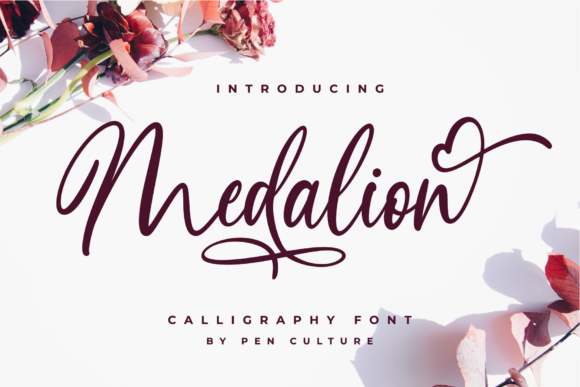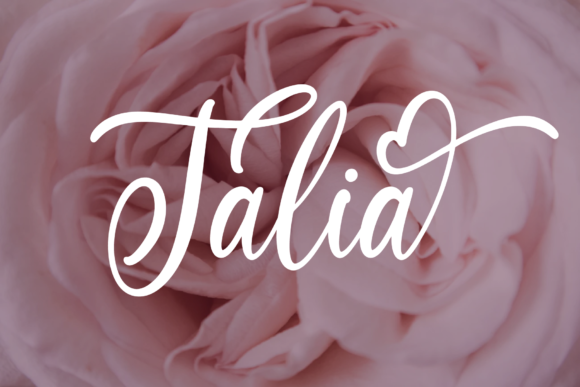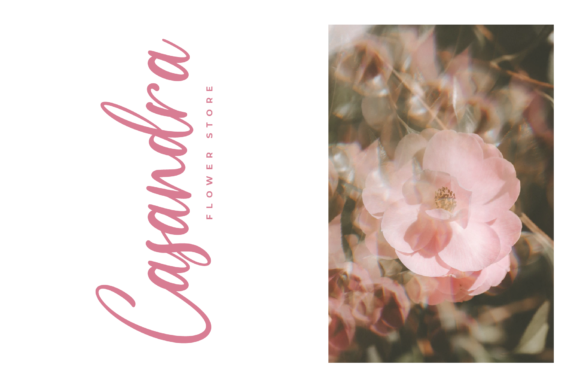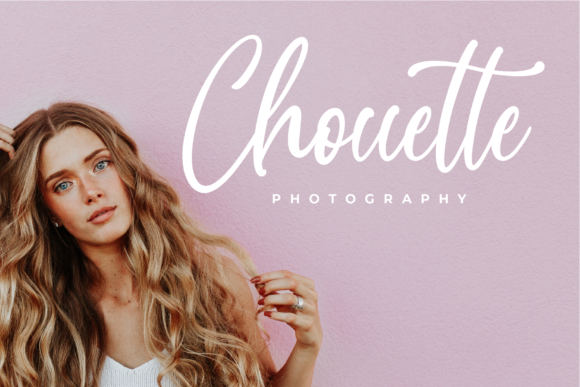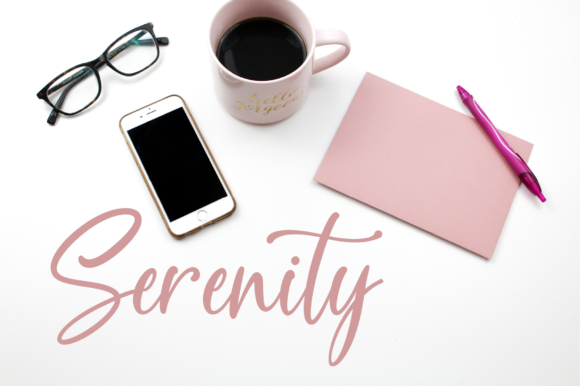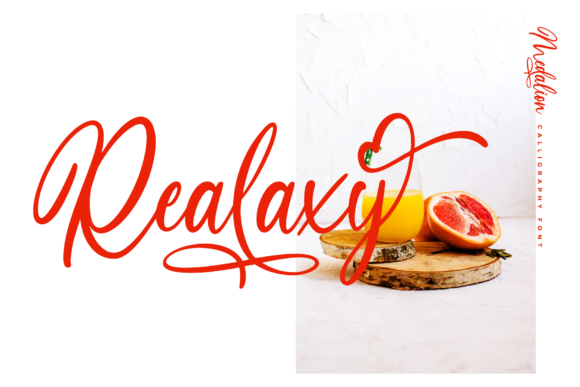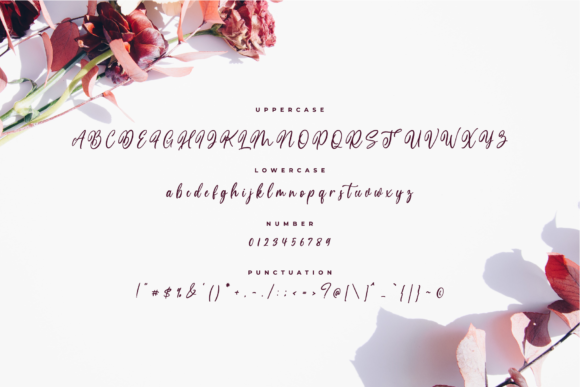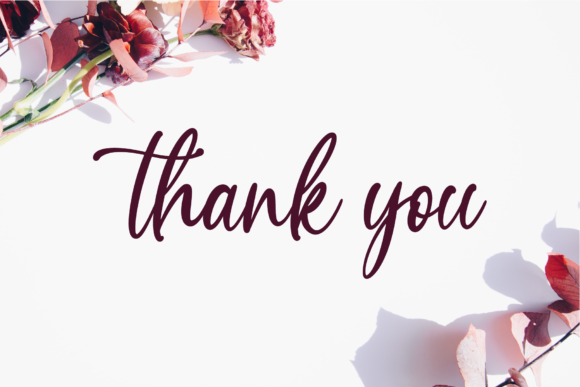
HomeScript FontsMedalion Font Script Fonts Medalion Font FacebookXPinterestWhatsApp Medalion Font Poster 2 Medalion Font Poster 3 Medalion Font Poster 4 Medalion Font Poster 5 Medalion Font Poster 6 Medalion Font Poster 7 Medalion Font Poster 8 Medalion Font Poster 9 About Medalion Font Medalion is a modern script font with interesting features. Fall in love with its charming appearance! DOWNLOAD ON CREATIVE FABRICAThis font is sold and delivered by Creative Fabrica. Font Canyon may earn a commission if you buy through this link. People also explored Secondwhy Font Doll Font Mortised Fleurons Font Stronger Electric Font Amostne Font Wedding Font Choerunnisa Font Joyful Barbershop Font Peach Garden – Handwritten Script Font 268 0 TagsMedalion Font Previous articleBrauhaus FontNext articleKip & Val Font LEAVE A REPLY Cancel reply Comment: Please enter your comment! Name:* Please enter your name here Email:* You have entered an incorrect email address! Please enter your email address here Website: Save my name, email, and website in this browser for the next time I comment. Personal Use Free Crack Man Personal Use Free Read more about this font Good Timing – Bold Personal Use Free Read more about this font Splatter Splash Personal Use Free Read more about this font Astagina Signature Personal Use Free Read more about this font BLOG Using Fonts in Digital Marketing: Tips to Strengthen Your Brand Identity In the realm of digital marketing, every visual element plays a crucial role in shaping a brand's identity, and fonts are no exception. The... Exploring Font Trends Elegant Wedding Invitation Fonts – Handwritten & Script Fonts How to Cut Any Font on Cricut: Convert a Font to SVG (Free)